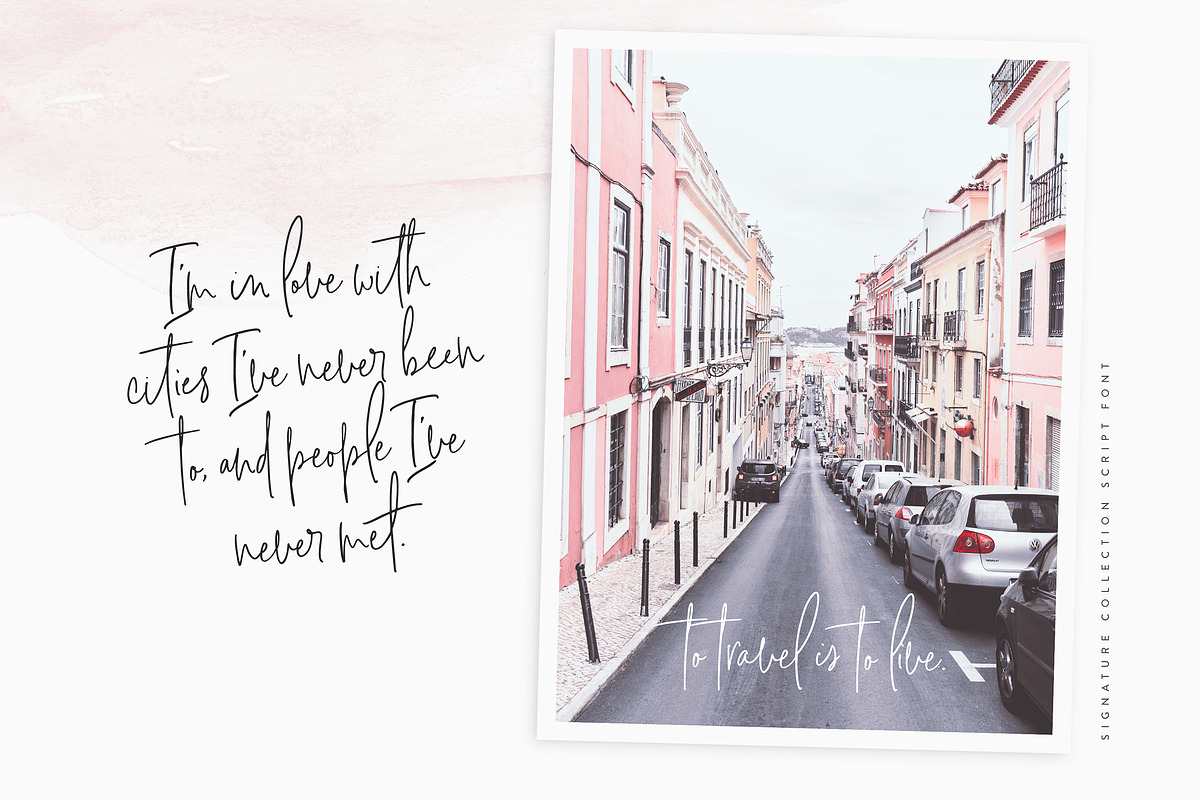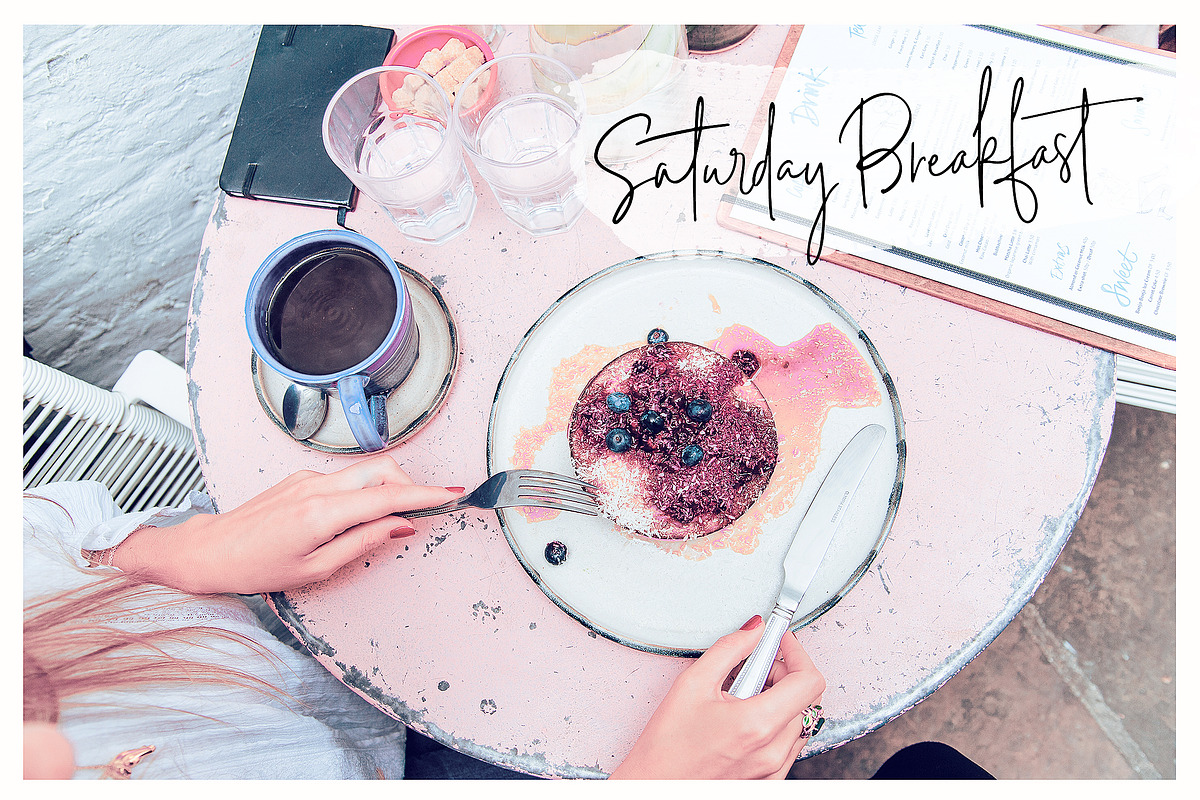
Signature Collection Script Font
Introducing the new ‘Signature Collection’ script font - A fashionable and super-chilled new handwriting font script with some sexy stylish extras:)
Signature Collection font was created to look as close to a natural handwritten script as possible by including over 100 ligatures, and a full set of lowercase alternates.
With built in Opentype features, this script comes to life as if you are writing it yourself.